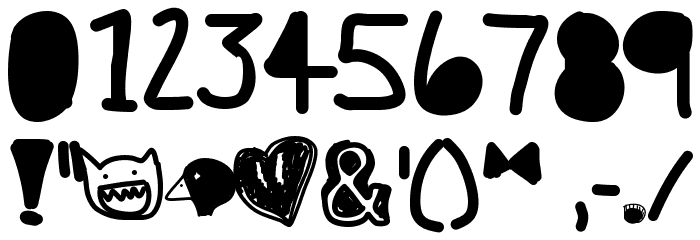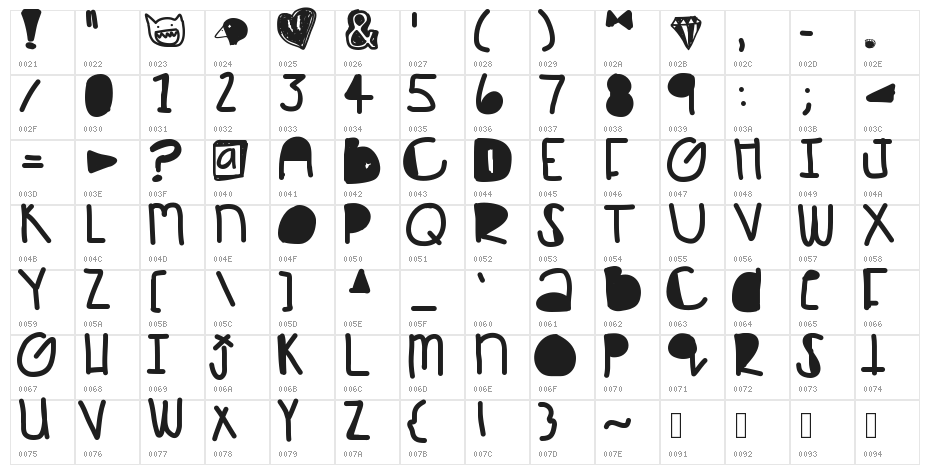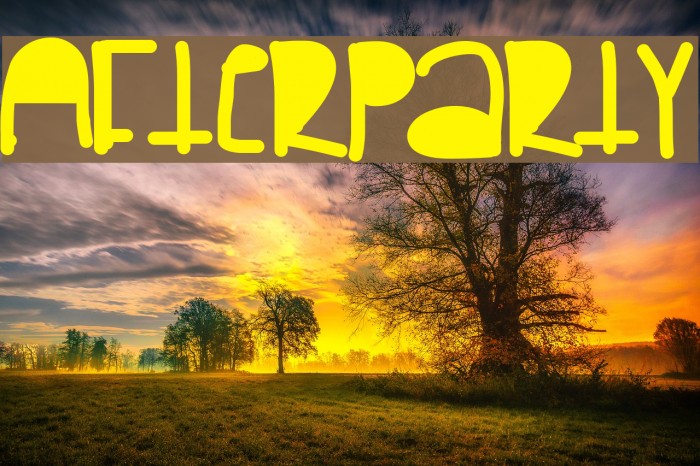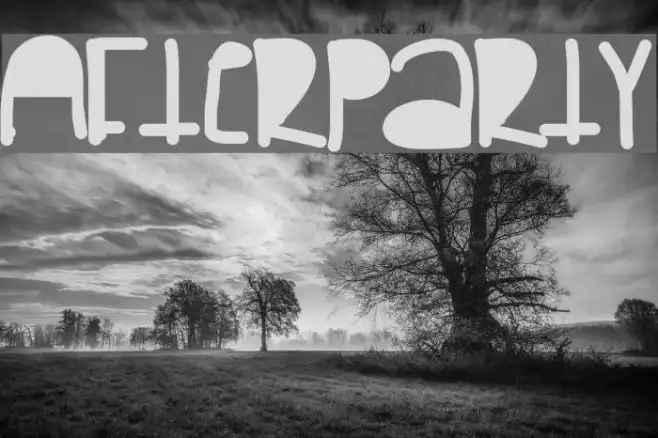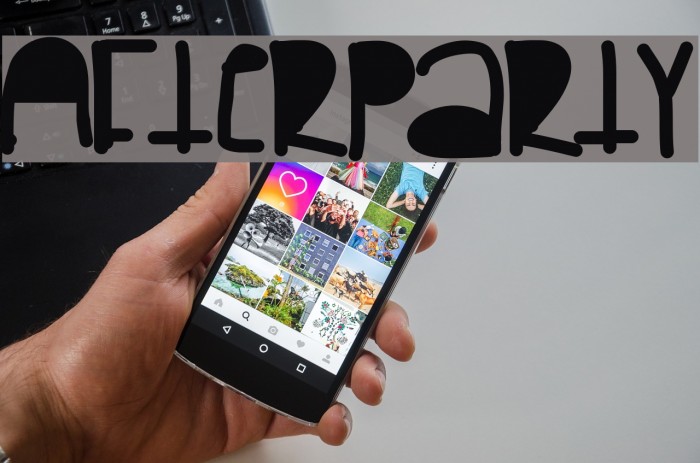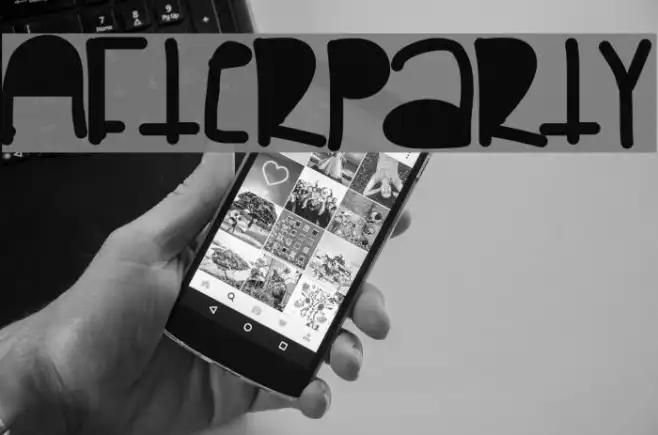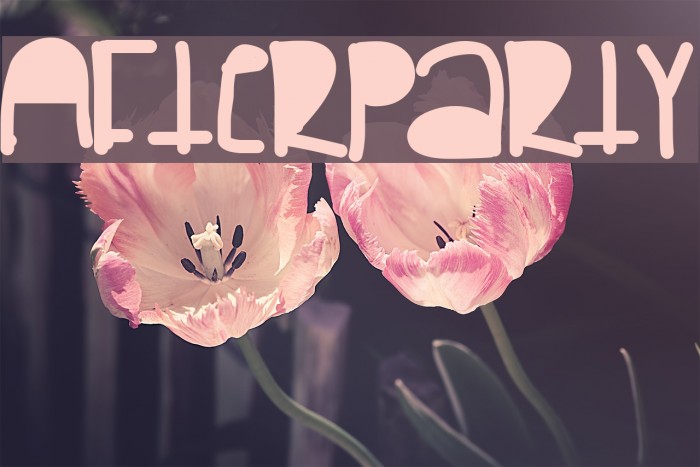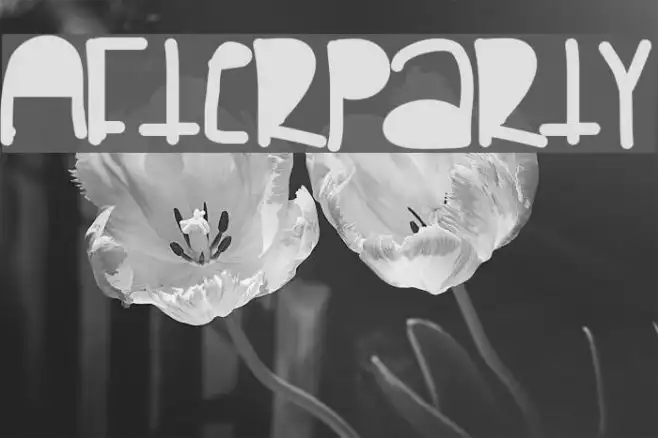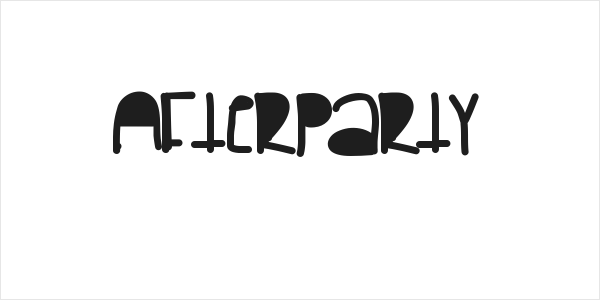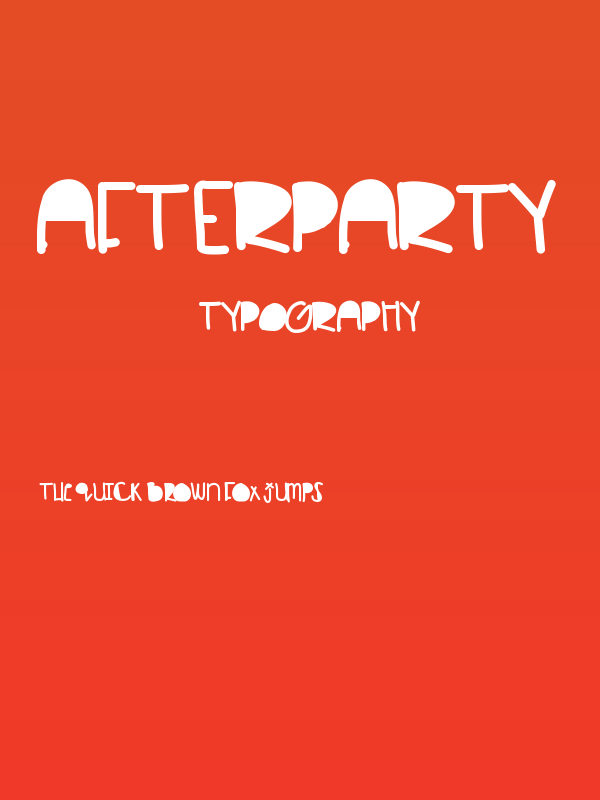
Afterparty Font
Afterparty Description
This playful and bold font features a mix of thick and thin strokes, creating a lively and energetic appearance. The uppercase letters are chunky and rounded, while the lowercase letters maintain a whimsical, hand-drawn feel. Numbers and special characters follow the same playful style, with some characters like the exclamation mark and ampersand adding a touch of humor. The font's unique style makes it stand out, with a casual and fun vibe that is perfect for creative projects.
| Overall Style | Playful, Fun, Creative |
| Proposed Projects | Ideal for party invitations, children's book covers, playful branding, and creative posters. |